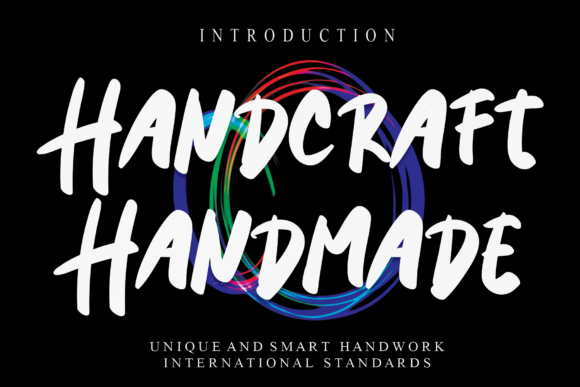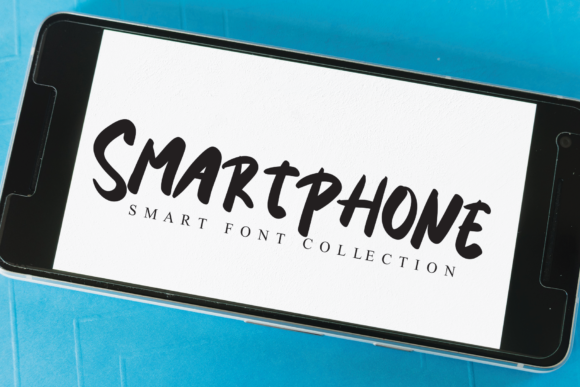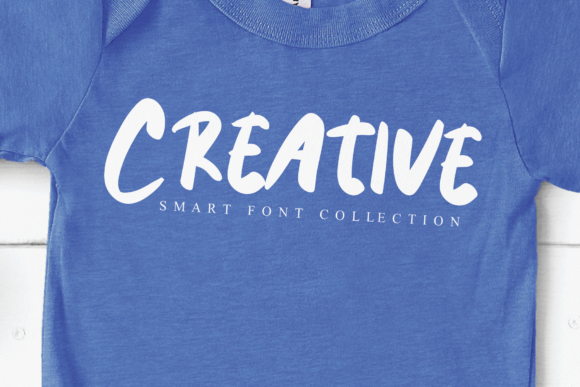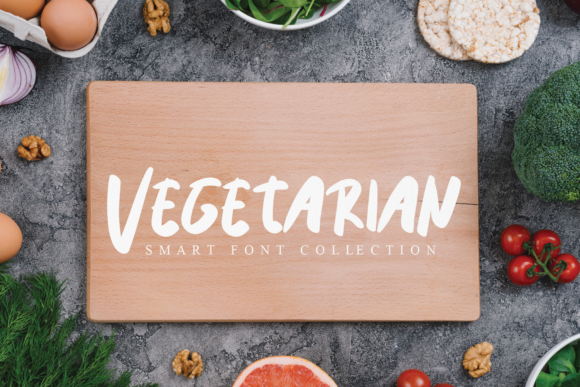
About Handcraft Handmade Font
Handcraft Handmade is a bold and friendly script font that brings a clean and slightly quirky vibe to your design projects. With its bold strokes and approachable style, this font is the perfect fit for logos, branding, social media, and crafty DIY projects.
The boldness of Handcraft Handmade font makes it visually impactful and attention-grabbing. Its strong letterforms and distinct characteristics contribute to a visually pleasing aesthetic that stands out. Whether you’re working on creating a memorable logo, developing a cohesive brand identity, designing engaging social media graphics, or working on creative DIY projects, Handcraft Handmade font enhances the overall visual appeal with its bold and friendly demeanor.
Using Handcraft Handmade font allows you to infuse your designs with a sense of personality and approachability. Its handcrafted appearance adds a touch of authenticity and brings a human touch to your creations. This font exudes a friendly and inviting vibe, making your designs visually appealing and relatable to your target audience.
The slightly quirky nature of Handcraft Handmade font adds a unique charm and character to your designs. It brings a sense of playfulness and creativity, making your projects stand out from the crowd. Whether used as a headline, in branding materials, or in DIY craft projects, Handcraft Handmade font adds a touch of whimsy and uniqueness to your compositions.
Incorporating Handcraft Handmade into your design projects empowers you to create visually captivating and engaging visuals. Its bold and friendly script font adds a sense of personality and enhances the overall impact of your designs.
In summary, Handcraft Handmade is a bold and friendly script font that brings a clean and slightly quirky vibe to your design projects. Its strong letterforms and distinct characteristics create visually impactful and approachable aesthetics. Embrace the personality of Handcraft Handmade font and let it enhance your logos, branding, social media graphics, and DIY projects with its bold and friendly presence, making them visually appealing and memorable.